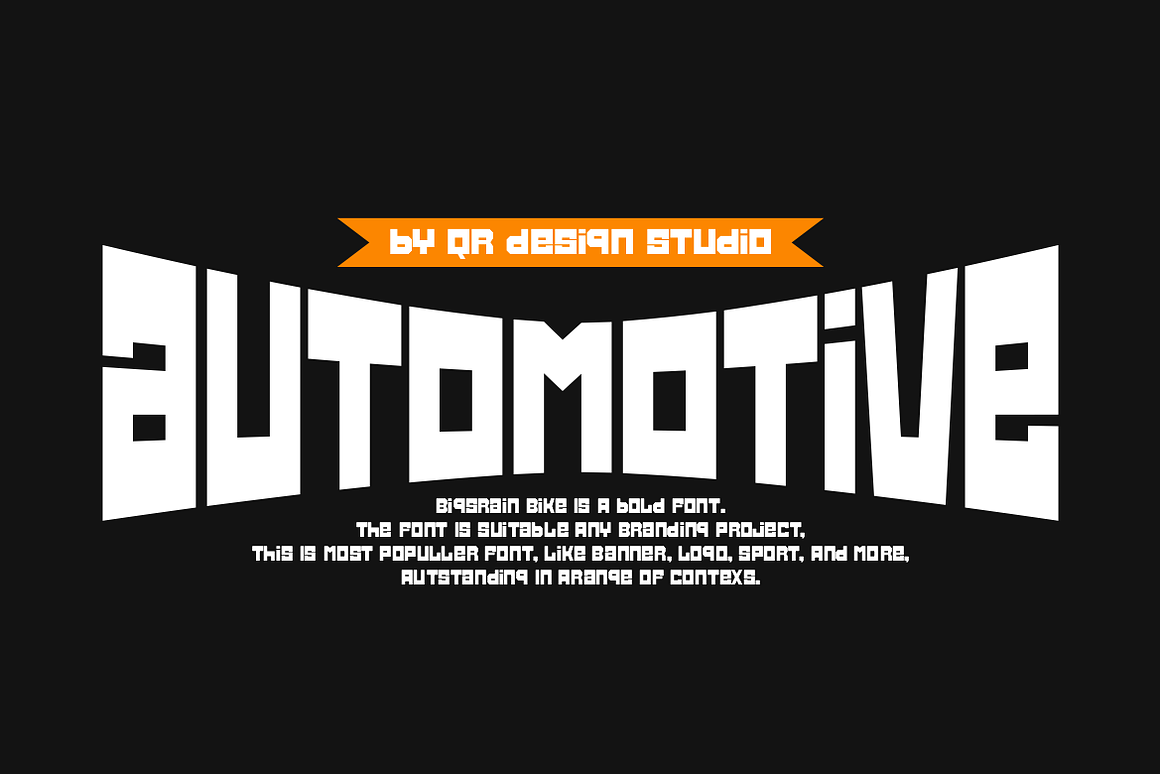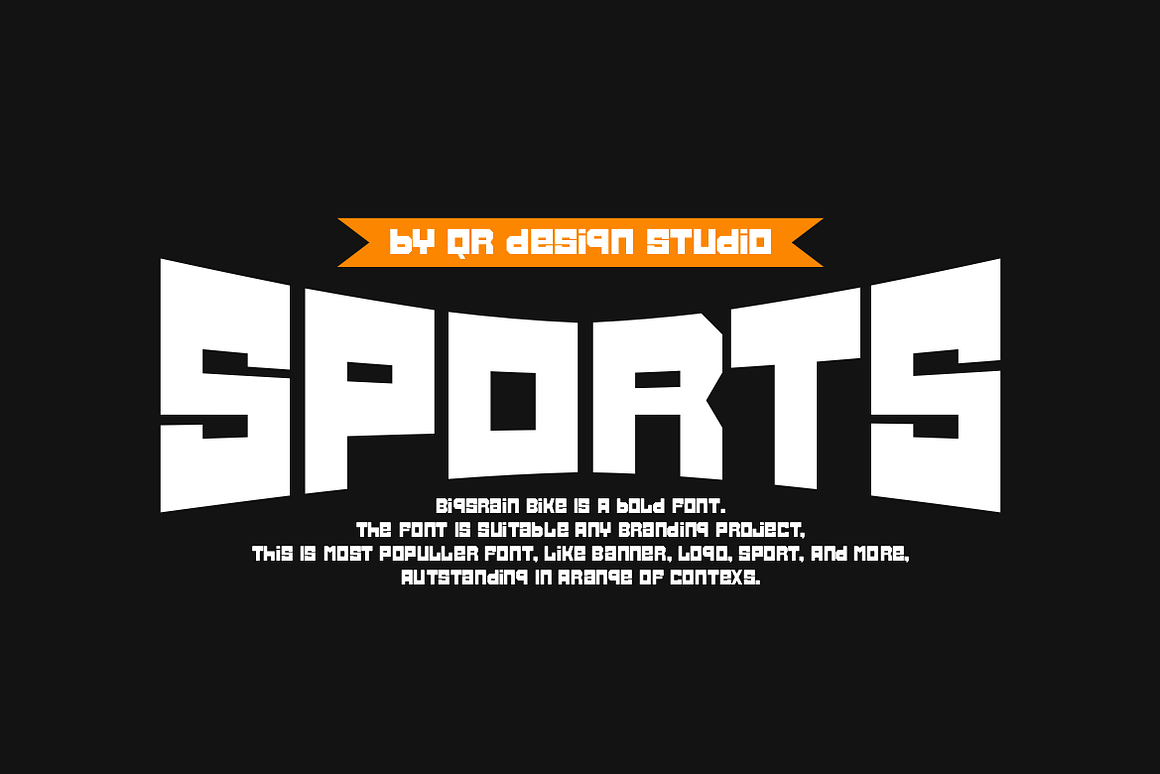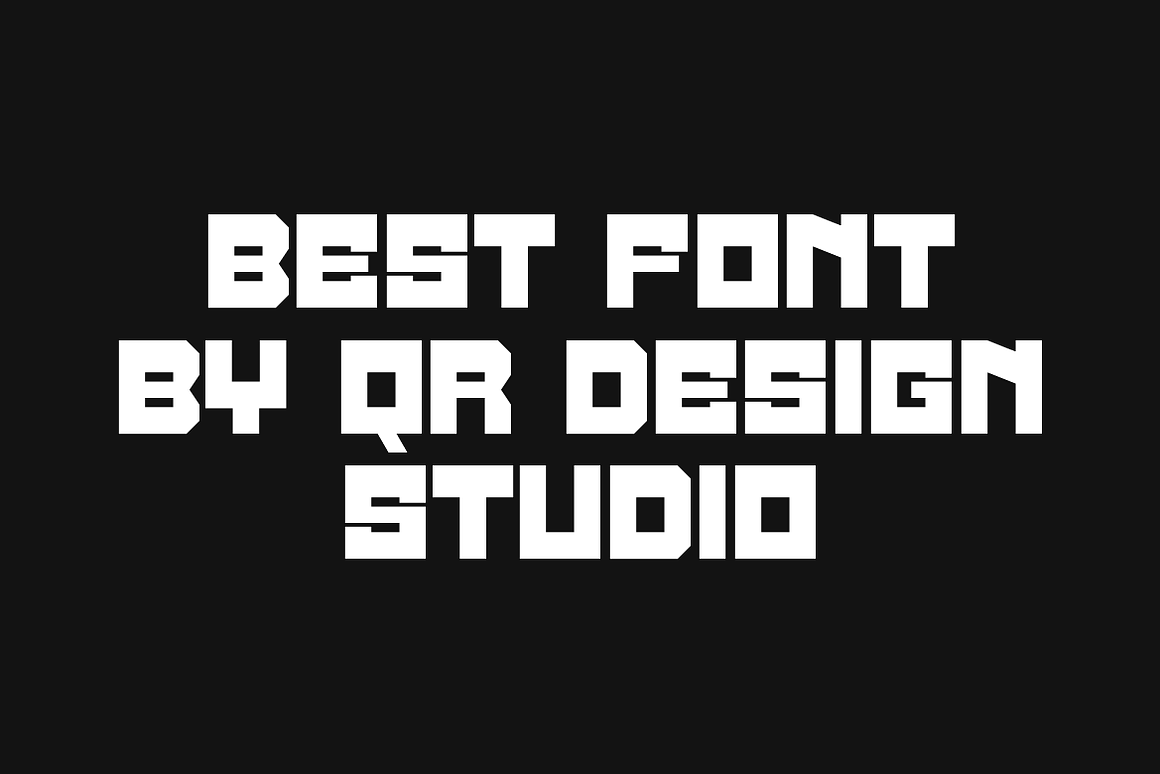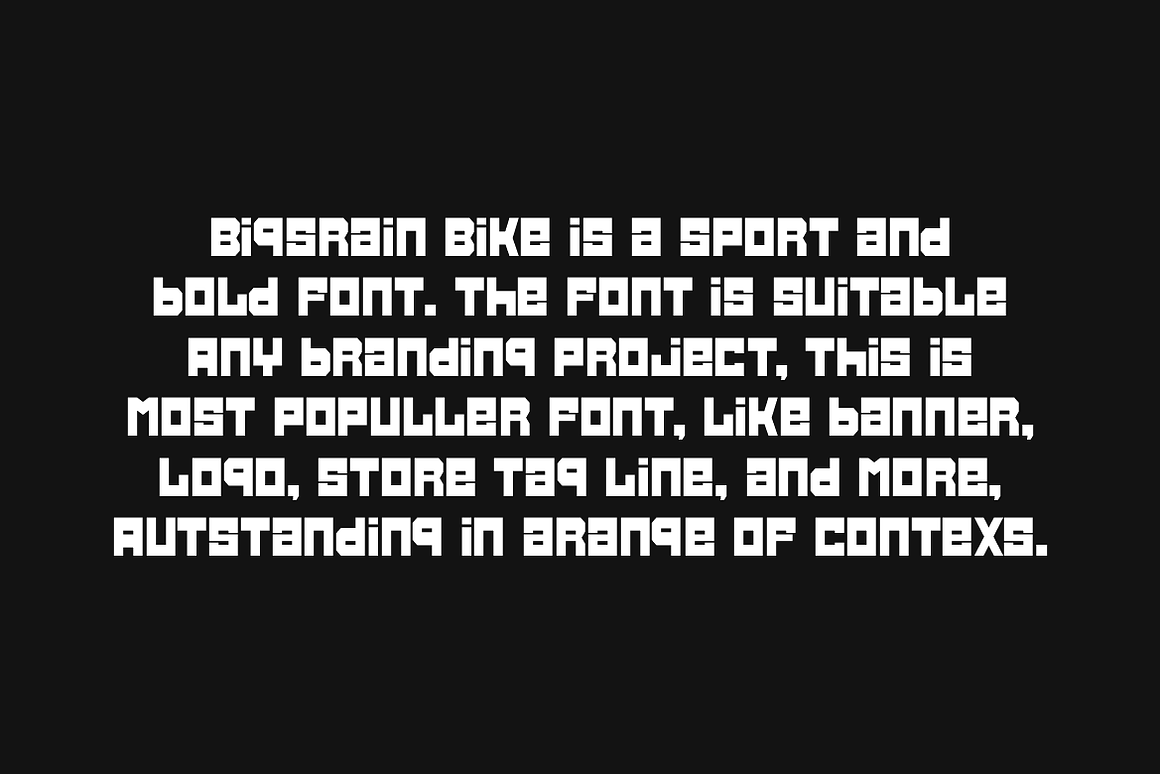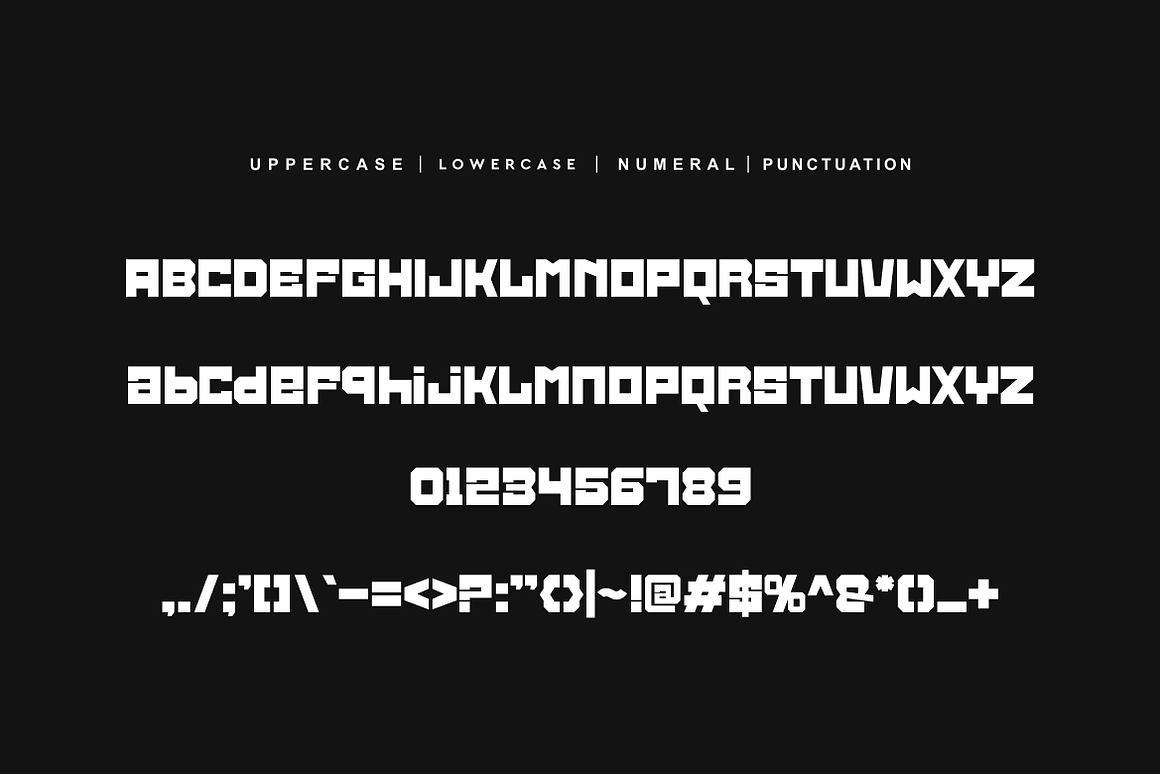
Bigsrain Bike - Blocky & Automotive Font
Bigsrain Bike Font is a bold and authentic display font. The font is suitable for any branding project like poster, logo, sport, and many more. Outstanding in a wide range of contexts.